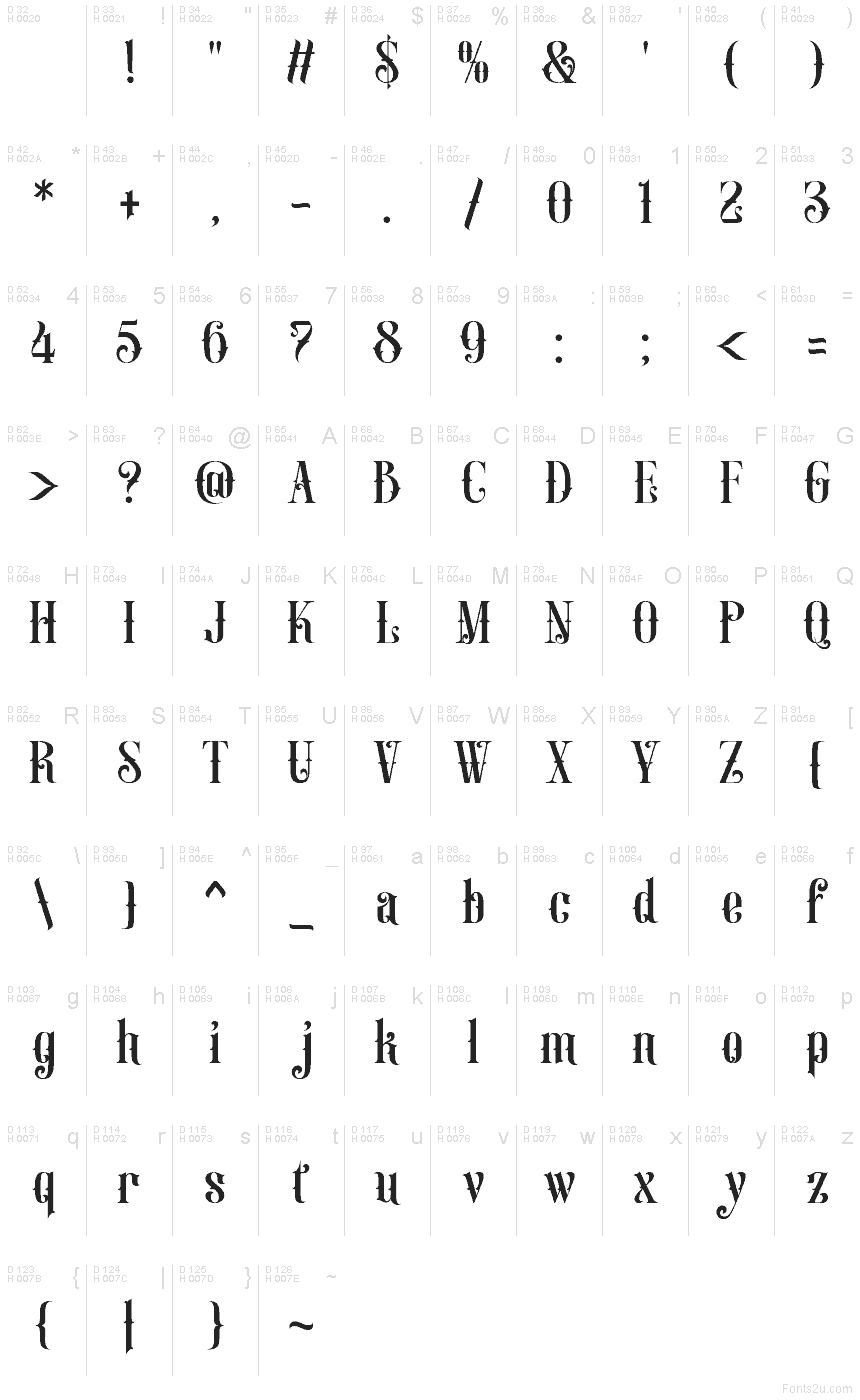
Bullstand Regular
Bullstand font designed by Alit Design is a retro display font with condensed letters and a Gothic style. Its dramatic appearance results not only from its intricate structure but also from its ornamental details. Ideal for obvious designs, it offers a historical influence with roots in the mid-19th century coupled with ornamental features that require careful observation.
Dive into history where technology was minimal and artists did everything by hand to create astonishing end results used in posters, headlines, magazine/book covers, logos, newspaper titles, branding designs, etc. Display this free font on TV programs or use it for metal band titles, tattoos/body art sketches, apparel items design (t-shirts) and much more!